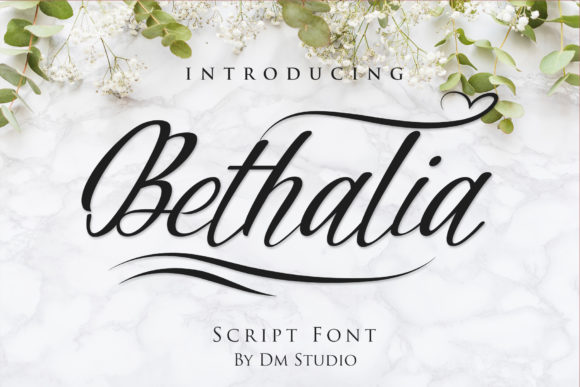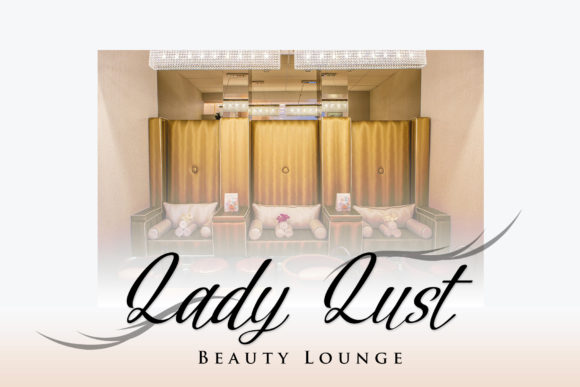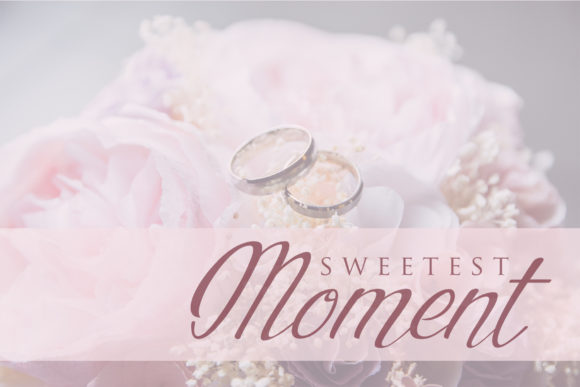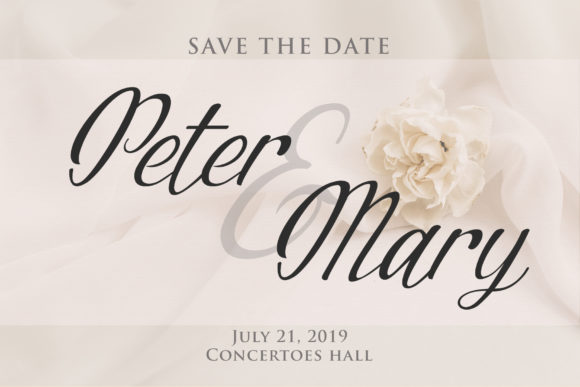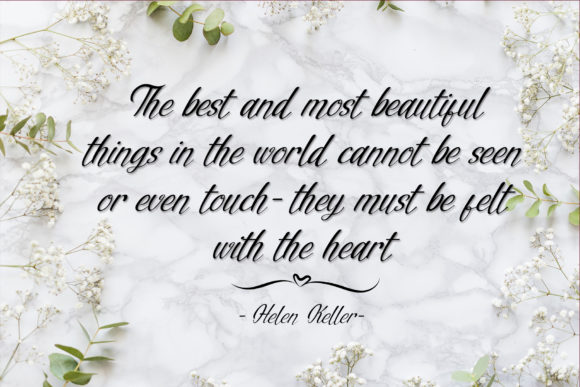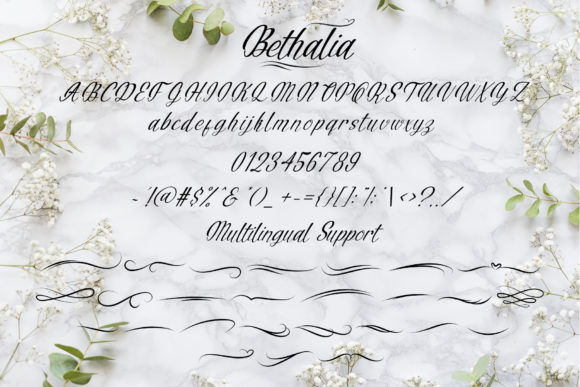
Bethalia Font
About Bethalia Font
Bethalia is a simple, clean, and casual script. It’s ideal for logos, branding, packaging, signages, quotes, and any design that needs a delicate appearance.